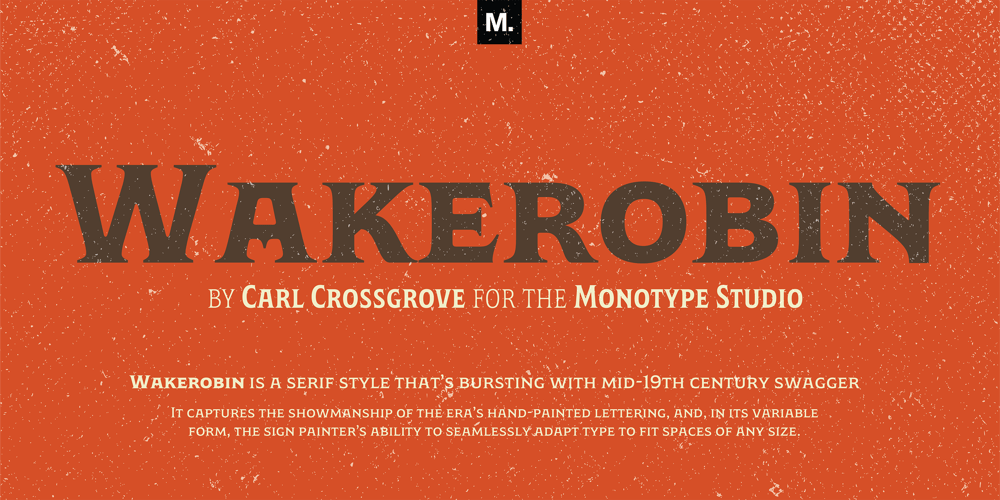
Wakerobin Font Family was designed by Carl Crossgrove and published by Monotype. Wakerobin contains 15 styles and family package options. Wakerobin takes its charming swagger from the hand-painted billboard, poster and signage lettering of the mid-19th century. These showy styles did everything they could to stand out from the background cacophony of advertising, with signwriters using sharp and high contrast serif letters, squared block shapes, or art nouveau forms to grab the attention of passersby. Wakerobin embraces the spirit of these letterforms, bringing these various styles together in one typeface – as if users had their own sign painter on hand. Just as lettering artists had to adapt to a variety of sizes – from wide streetcar lettering to compressed forms that squeezed into narrow Victorian windows – the variable version of Wakerobin scales up and down in width to fit whatever environment the user’s working in. The static fonts come in three widths and five weights. As well as its adaptability, Wakerobin is bursting with vintage flavour, making it hard to ignore. Its distinctive, spiky serifs would be right at home on food and drinks packaging, as well as shop windows, adverts, and any other place that calls for some typographic showmanship. It performs particularly well in busy environments, or anywhere with a lot of visual noise – just as its historic predecessors did. And while Wakerobin is first and foremost a display typeface, it’s surprisingly elegant when used at text size, or in the lighter end of the weight spectrum.